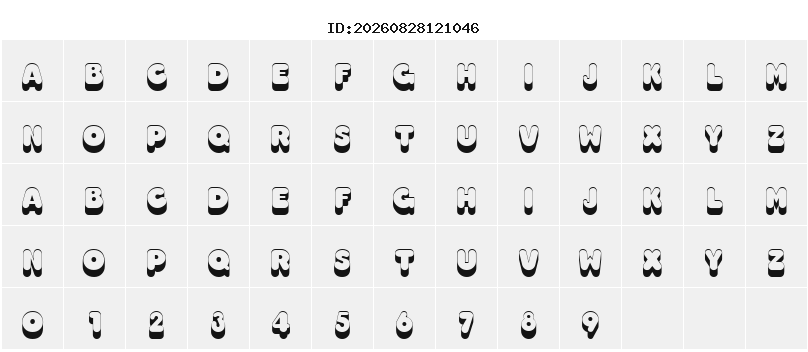
Too Much Shadow Preview
• Font Name: Too Much Shadow
• Full Font Name: Too Much Shadow Regular
Too Much Shadow.ttf is a modern, elegant sans-serif font designed for ultimate readability and visual harmony. Perfect for branding, headlines, web design, and print materials.